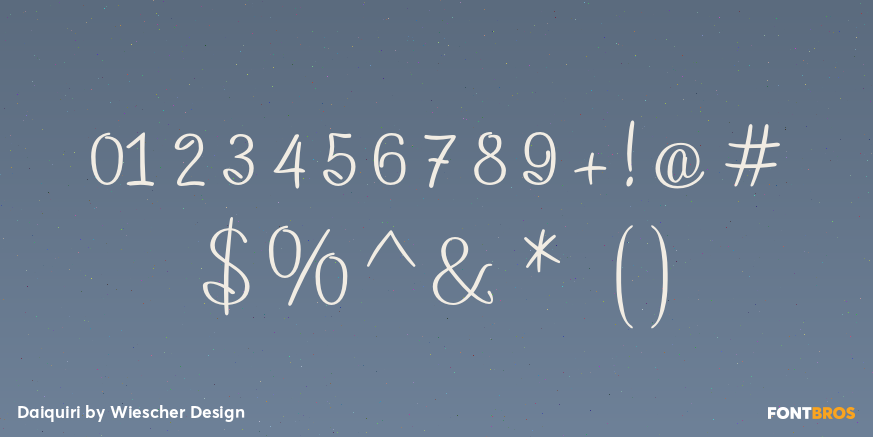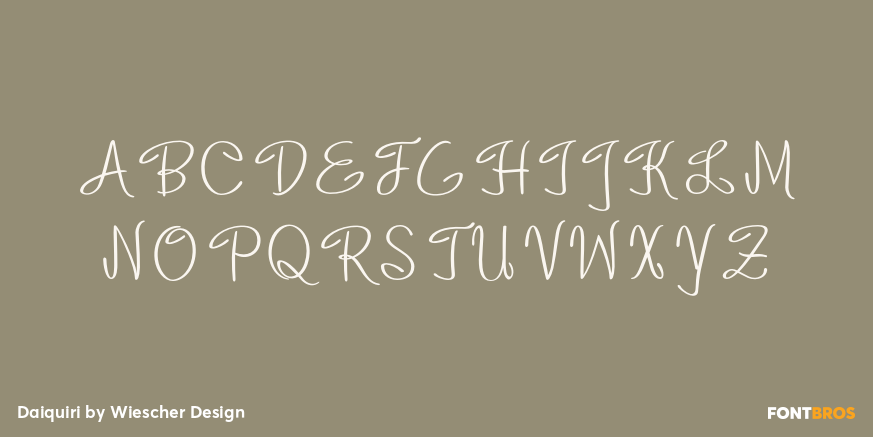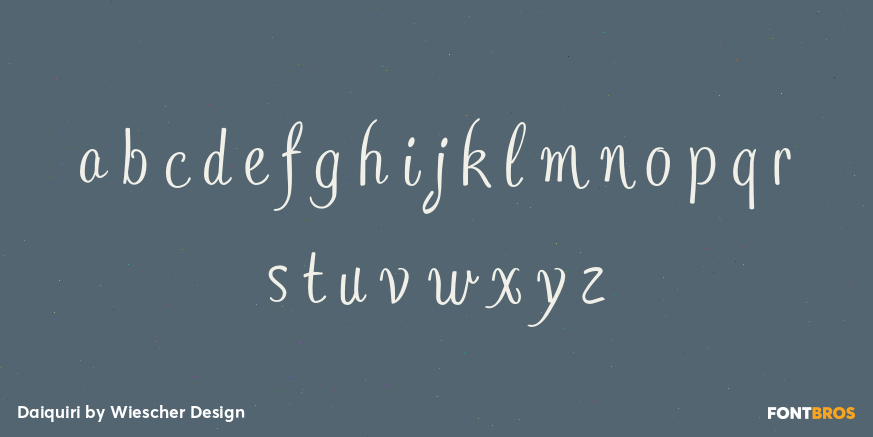
Daiquiri
Font Family by Wiescher Design
Daiquiri is a revival of a handlettered font in two weights, from an ad for Puerto Rico Rum dating back to the forties or fifties. I found the ad on a French antique market on my last visit for Mardi Gras in Nice. The ad read ?Breeze through the heat, be a Daiquiri fan?.
That's why they had this ?fan? in the illustration! Did they want you to rotate like a fan when you had enough Daiquiris? Or did they just do it for that little ?Jeu des mots??
Anyway I found the handlettering very pretty, so I took those few letters and made a whole font out of them. I think Daiquiri has that touch that brings those happy and uncomplicated times back when advertising was still fun. I started something like 20 years later in advertising and things had gotten more stringent. We already had to satisfy those marketing guys with their scholarly attitude. They have taken all the fun out of the job, for the creators as well as for the consumers.
I would like to see more uncomplicated ads like this again, yours Gert Wiescher